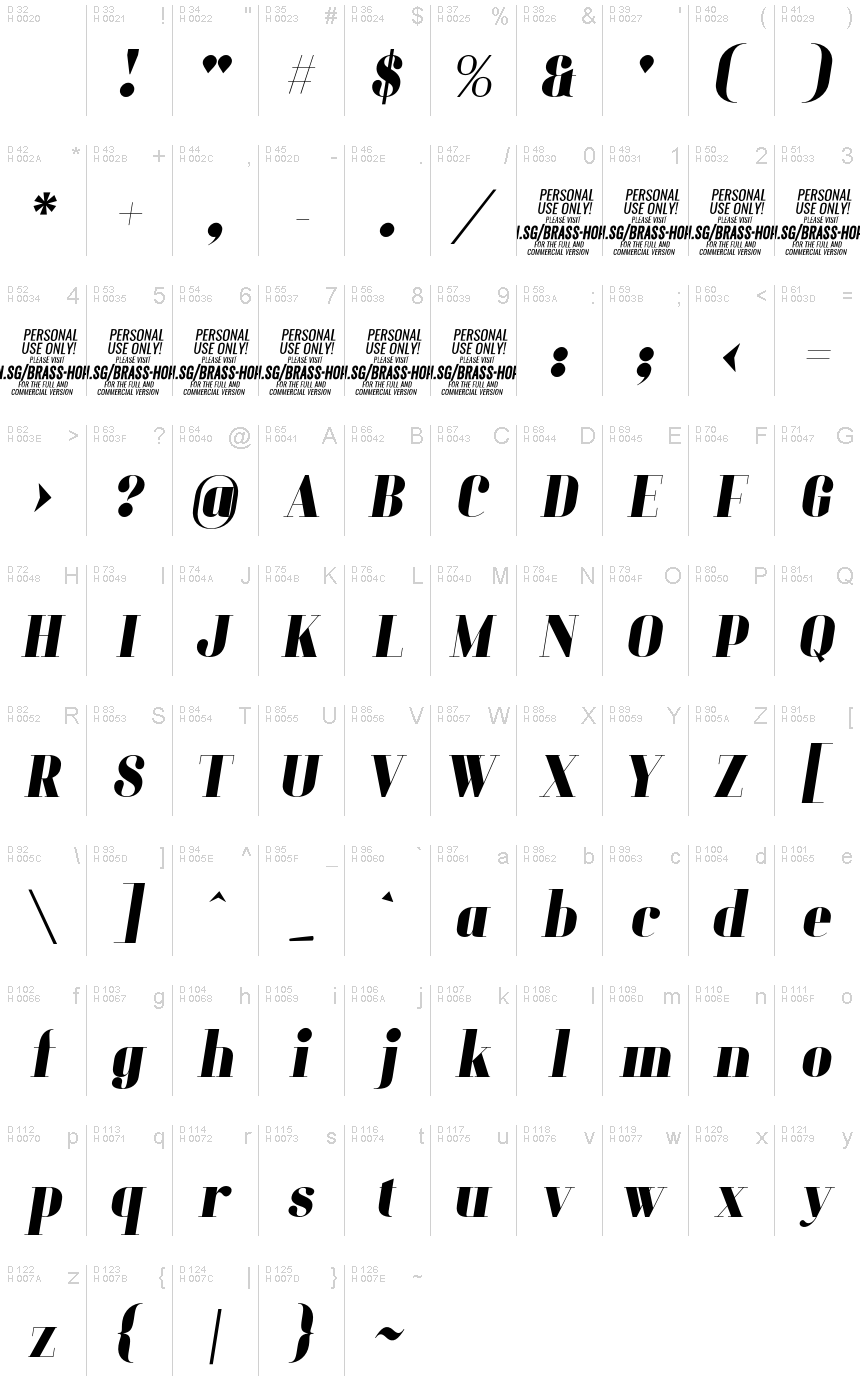
Brass Hopper Head PERSONAL Black Italic
Brass Hopper Head Black Italic font, crafted by Mans Greback, stands out with its bold, striking serif style. The distinctive, structural design of each letterform exudes a sense of stability and sophistication, making it perfect for elevating artistic displays and architectural presentations. The exaggerated forms command attention, while the italic slant adds a touch of dynamism.
As a variable font, Brass Hopper Head offers an impressive degree of flexibility, allowing for extensive customization to suit diverse design needs. This makes it an ideal choice for branding ventures, editorial work, or any project where unique typography is key. Its aesthetic appeal lies not only in its robust design but also in its ability to adapt seamlessly across various contexts—making it a versatile asset in contemporary design landscapes.